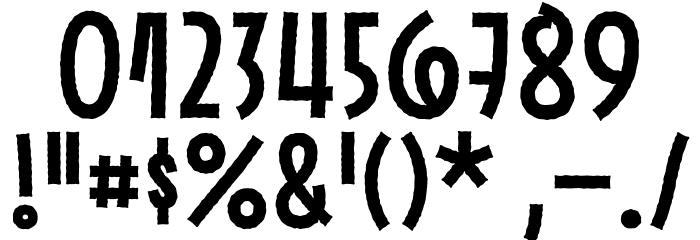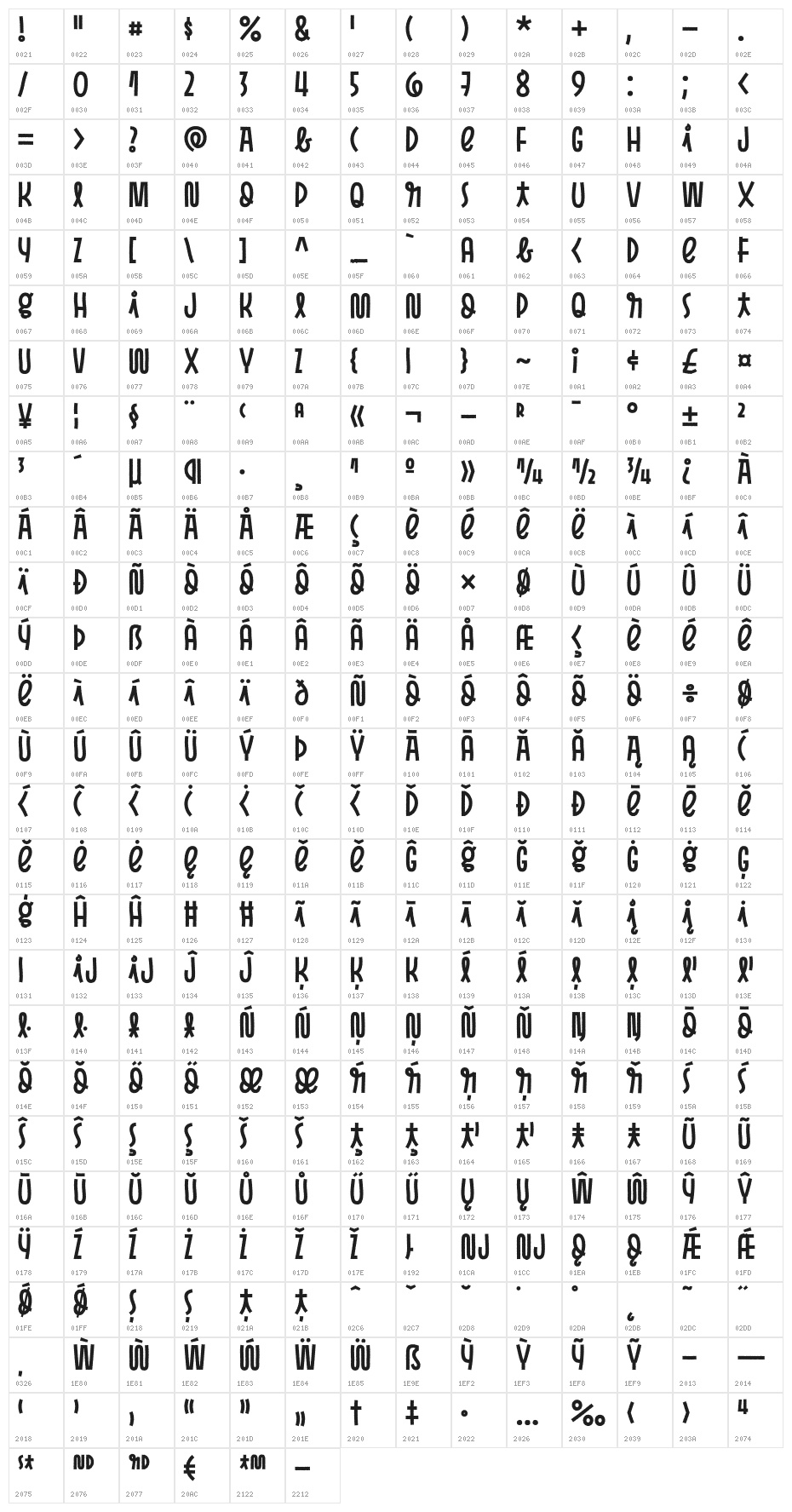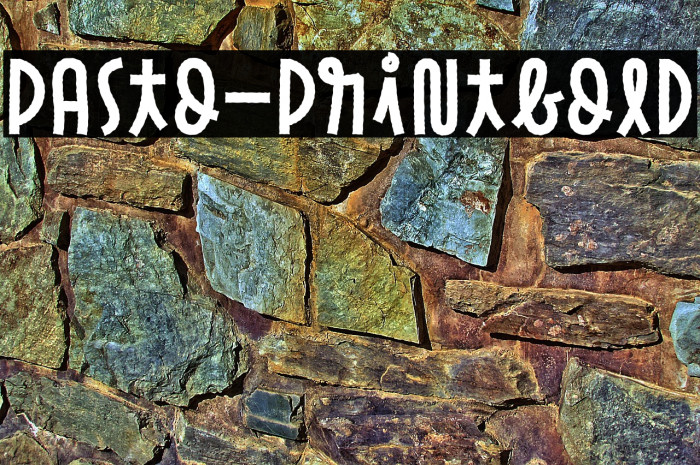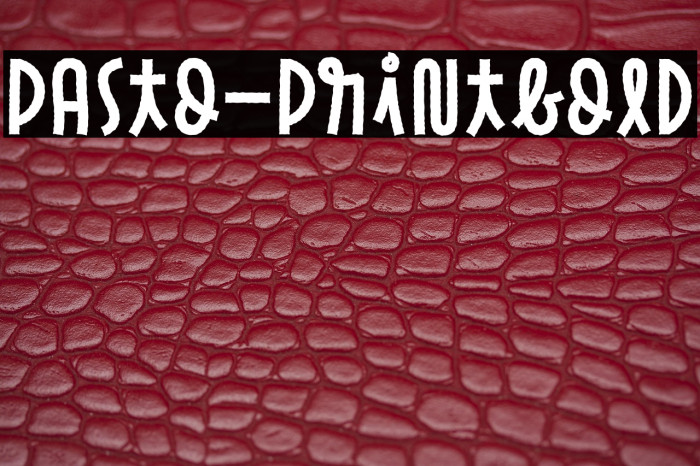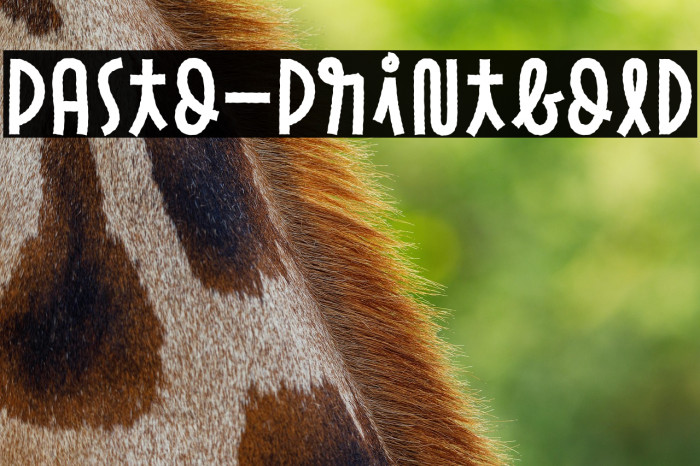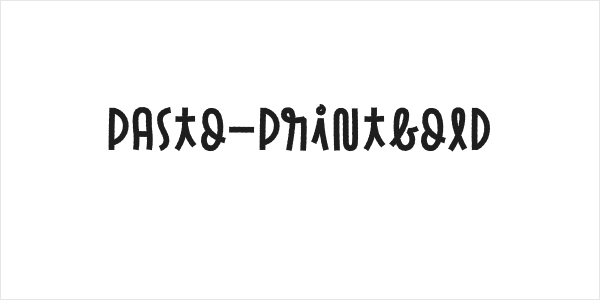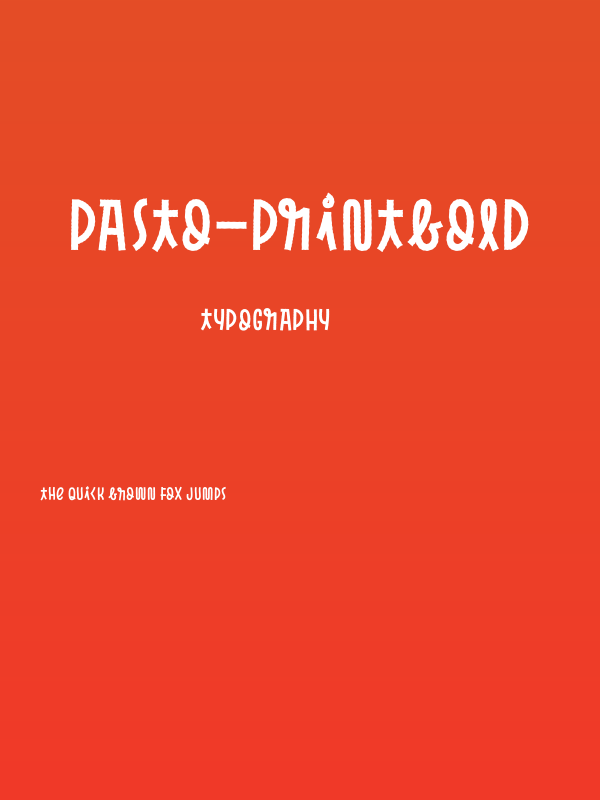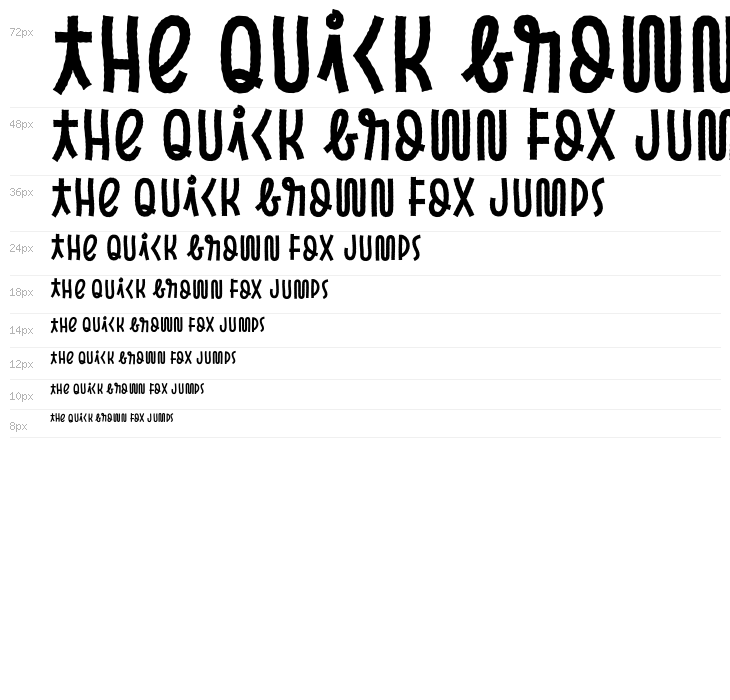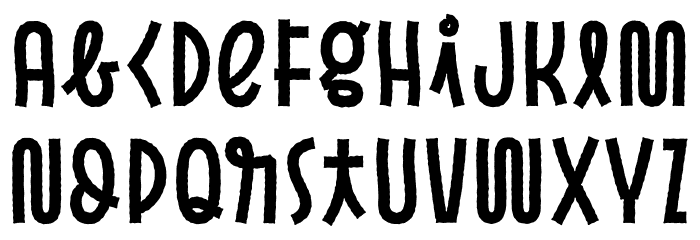
Pasto-PrintBold Font
Pasto-PrintBold Description
This font features a bold and playful design with a unique, hand-drawn appearance. The characters are thick and slightly irregular, giving them a whimsical and artistic feel. The uppercase letters have a distinctive style with exaggerated curves and angles, while the lowercase letters maintain a consistent, rounded form. The numbers and special characters follow the same playful aesthetic, making the font suitable for creative and informal projects. The overall look is both modern and retro, with a touch of quirkiness that adds personality to any design.
| Overall Style | Playful, Artistic, Modern |
| Proposed Projects | Ideal for posters, children's books, greeting cards, and playful branding. |